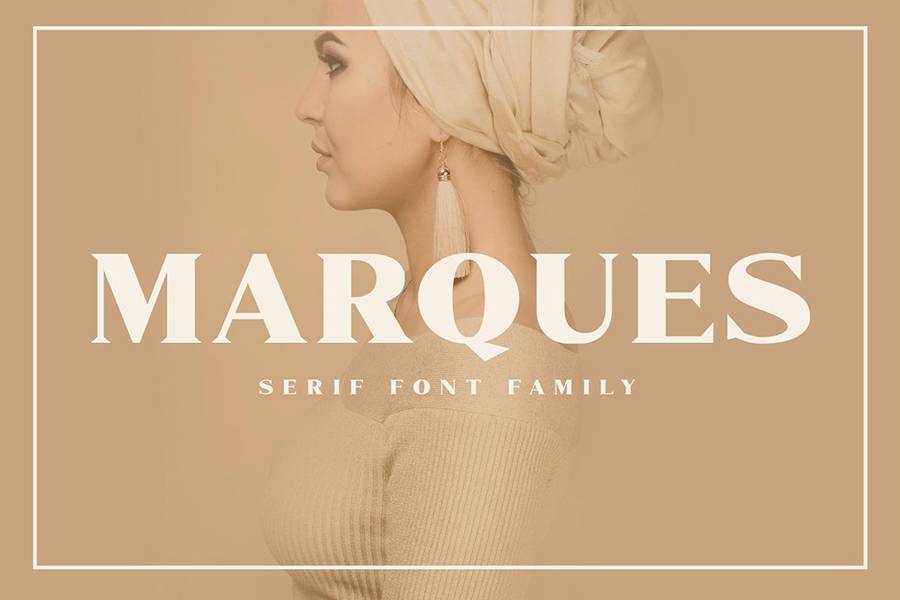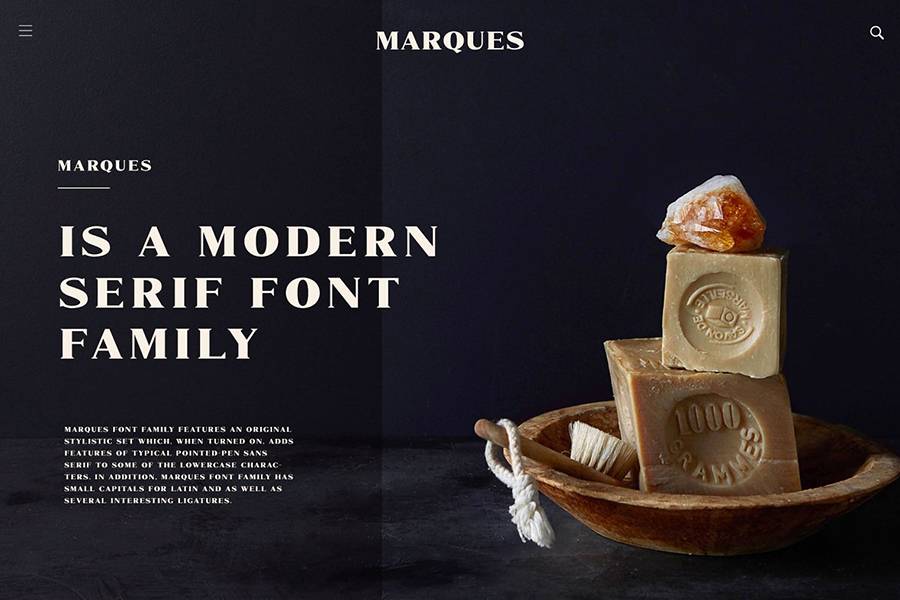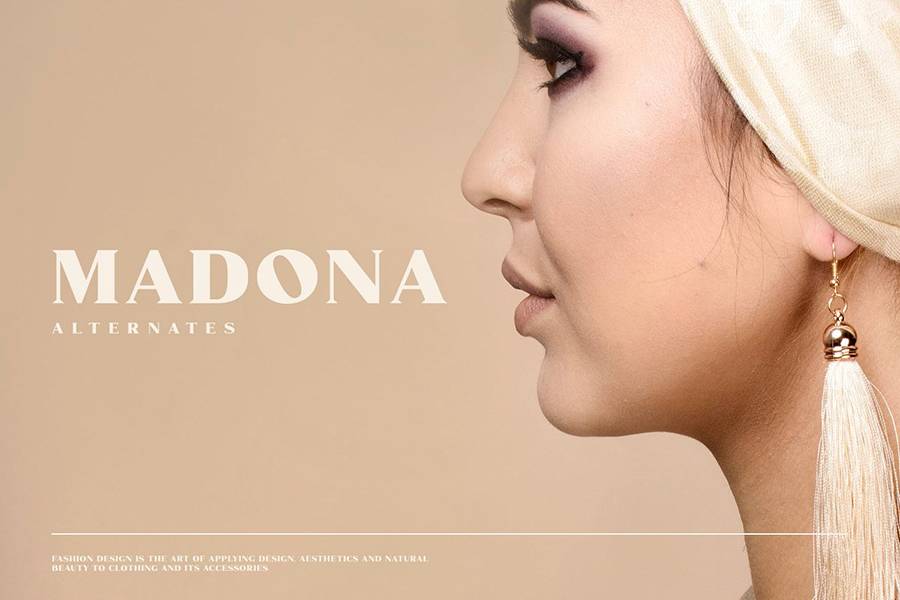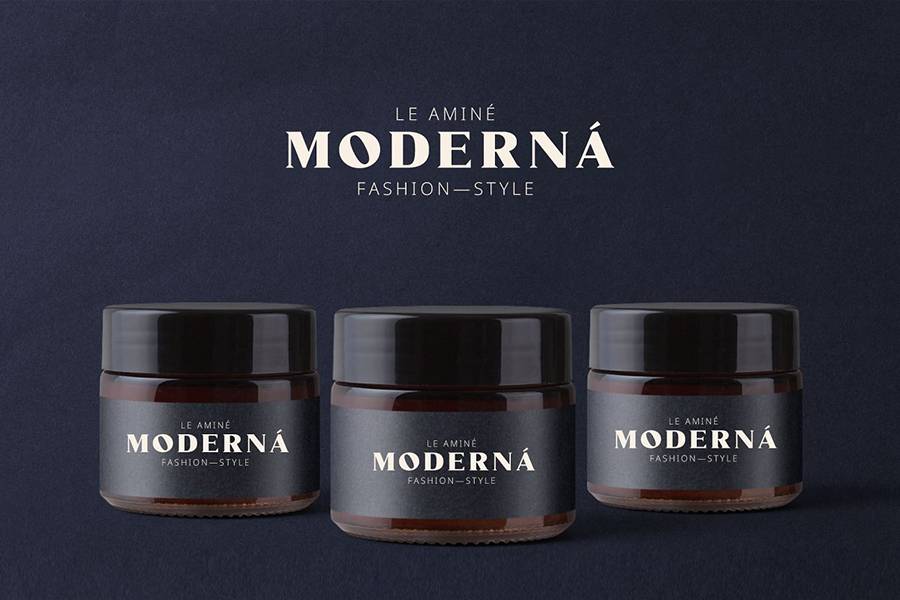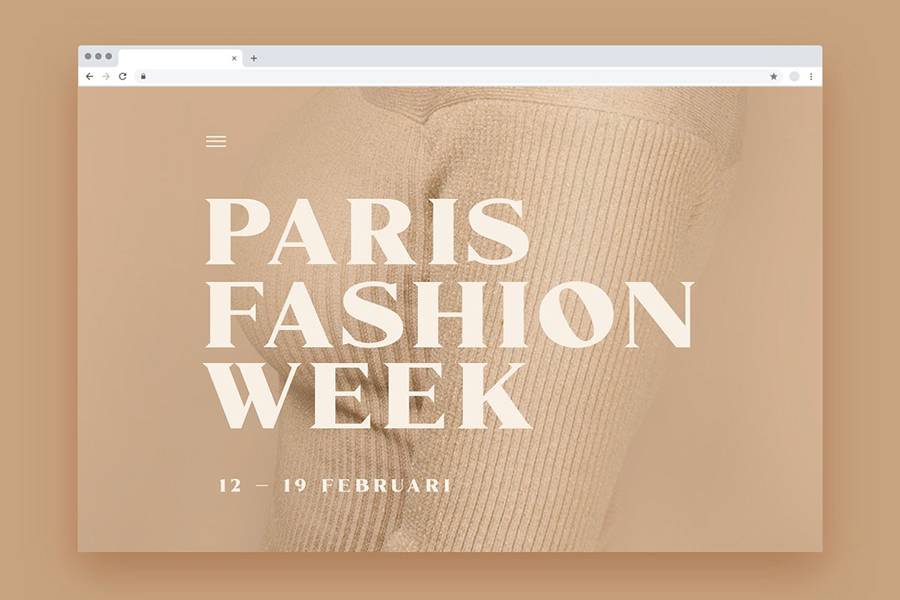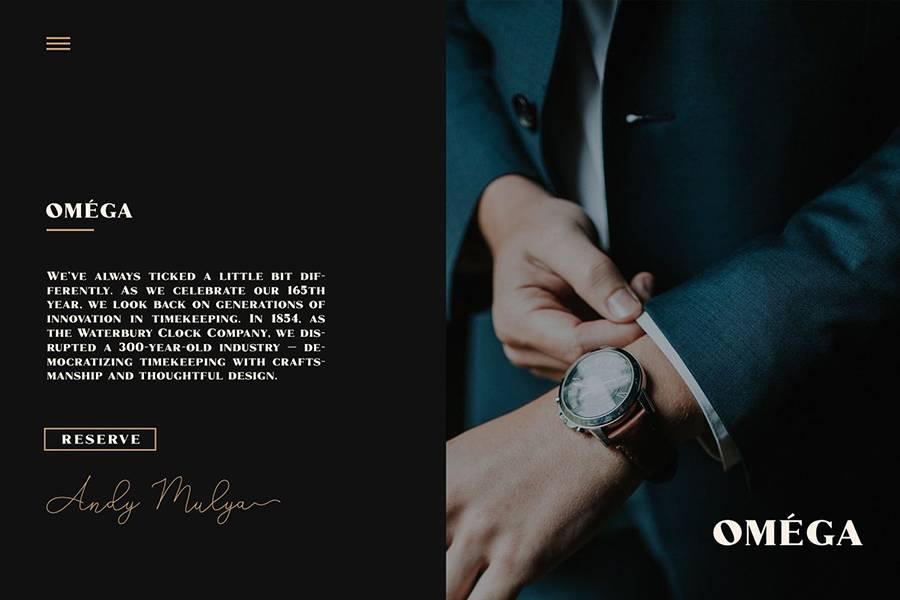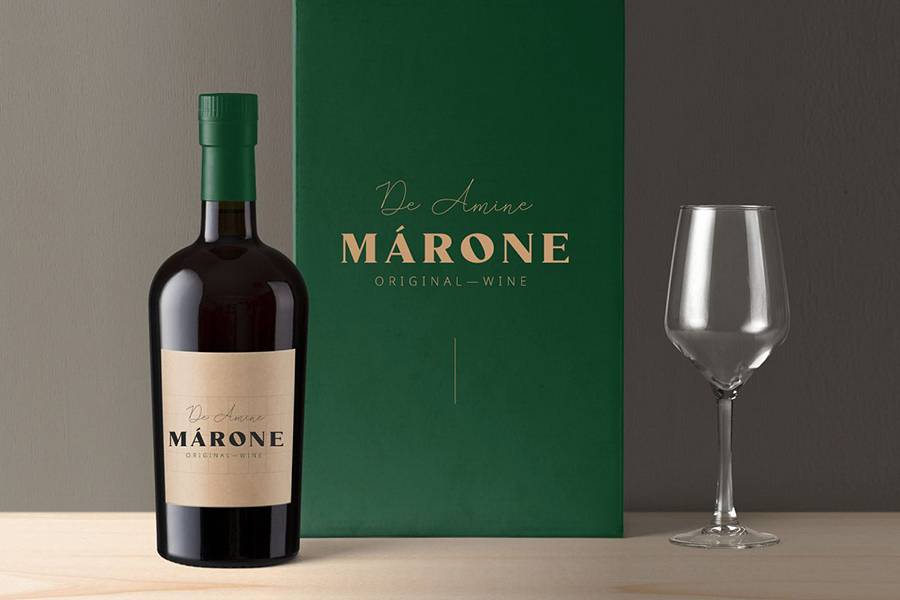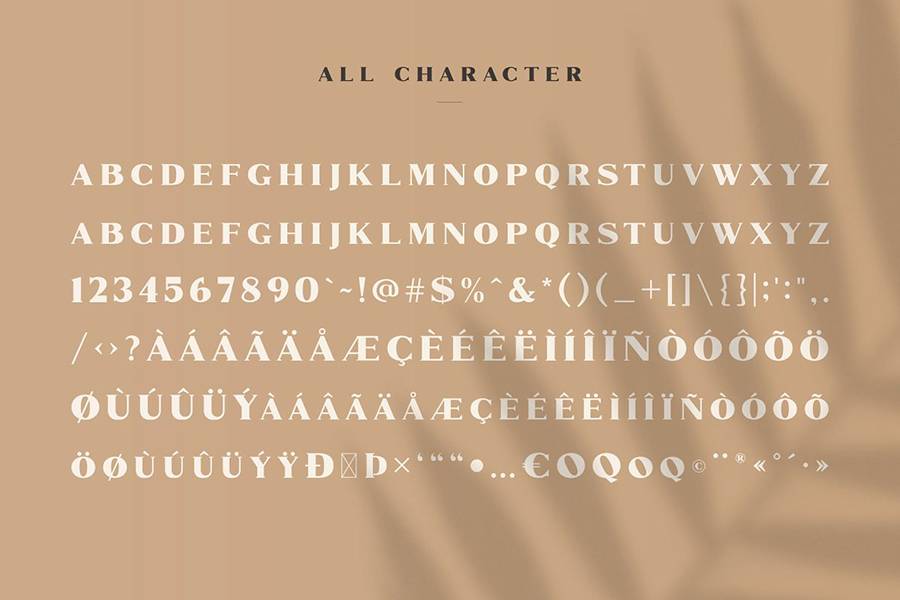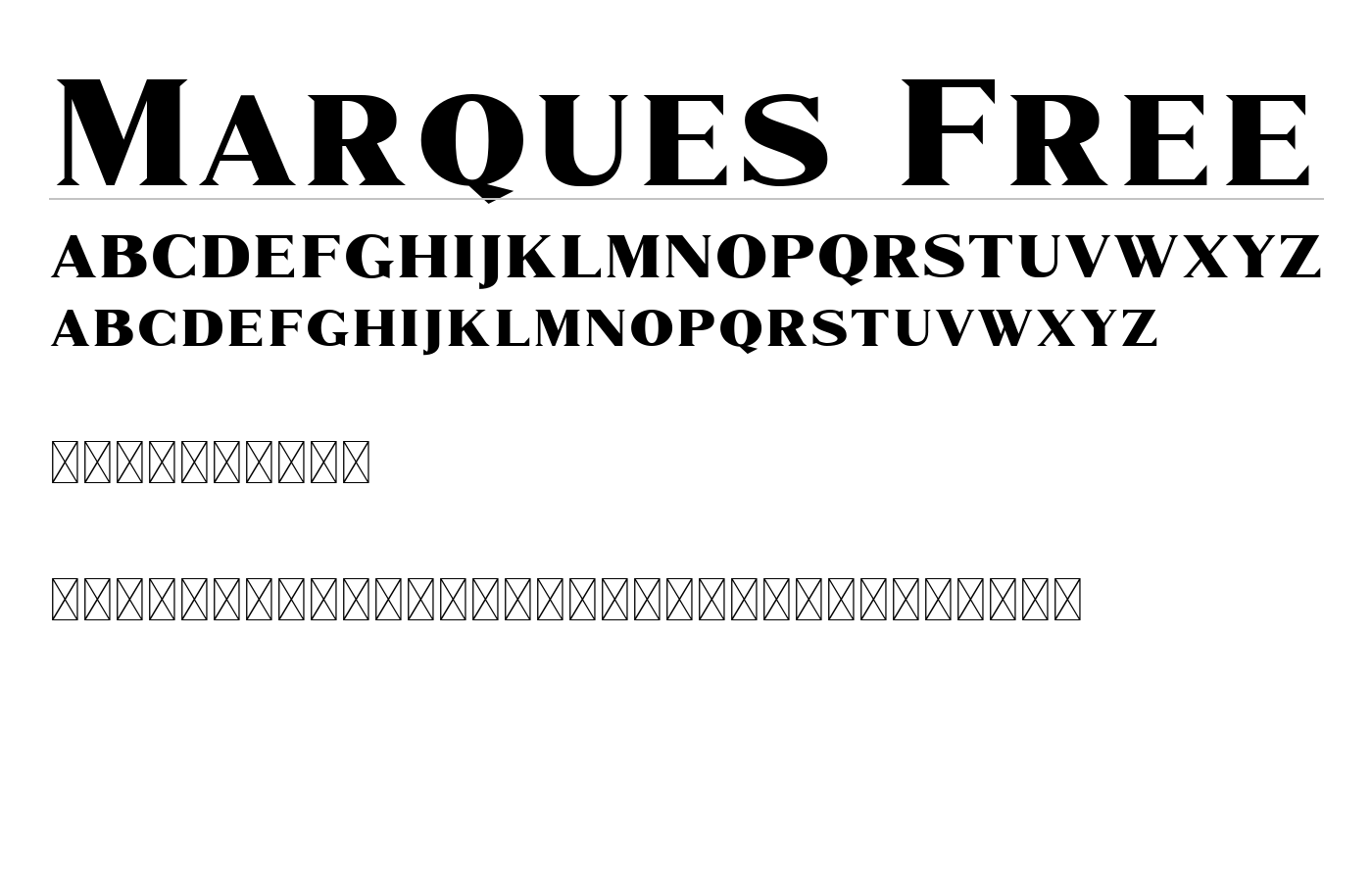
Marques Modern Serif is a bold, high-contrast serif font with sharp, elegant details and bracketed serifs that give it a refined, sophisticated look. Its tall x-height and strong vertical stress make it ideal for striking headlines and luxury branding, conveying a sense of classic style with a modern edge. This font works beautifully in fashion, editorial layouts, and premium packaging where a commanding yet timeless presence is desired.
Marques Modern Serif Font
About Marques Modern Serif Font